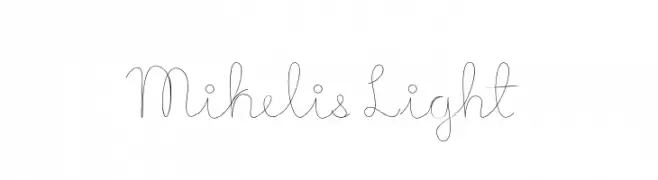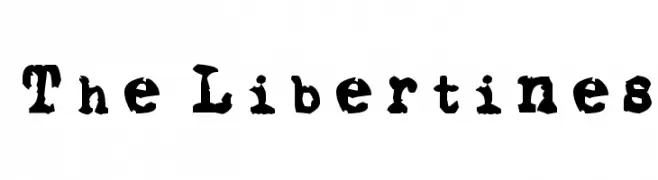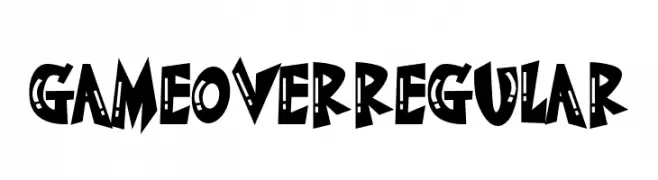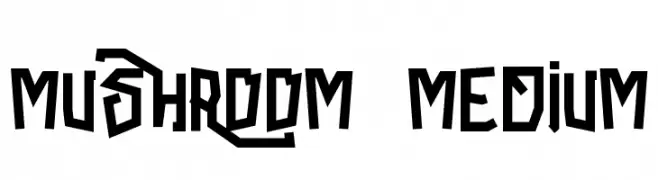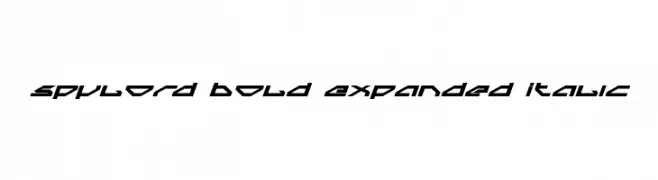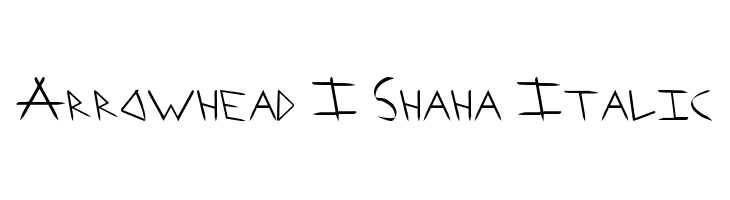
A delicate and elegant script font with flowing, interconnected lines.
A playful, eclectic font mimicking cut-out letters with diverse styles.
A decorative and whimsical font with intricate curls and loops.
A cursive, handwritten font with elegant, flowing strokes.
A distressed, grungy font with a vintage, worn appearance.
A bold, retro-inspired font with angular strokes and high contrast.
A bold, playful font with dynamic, angular characters and a cartoonish style.
A bold, geometric font with sharp angles and a futuristic style.
A bold, expanded, and italic font with a futuristic and dynamic style.